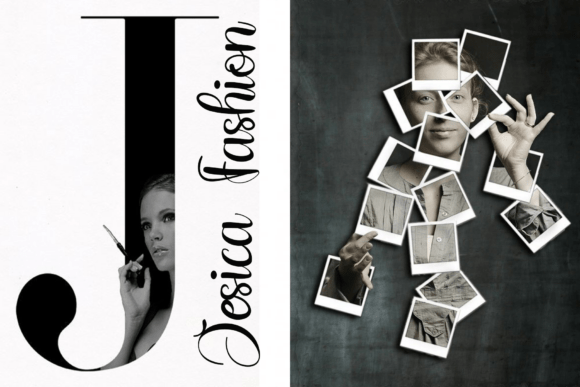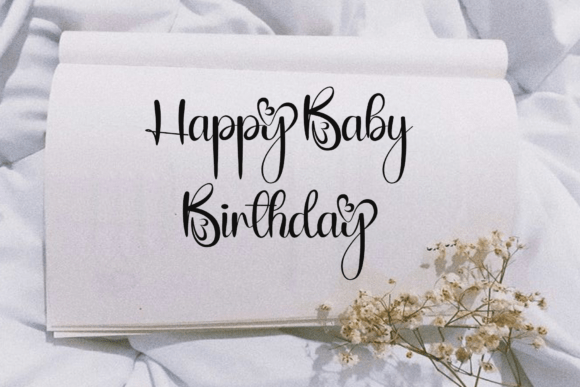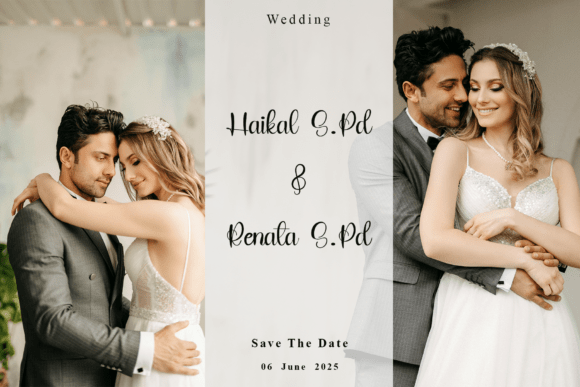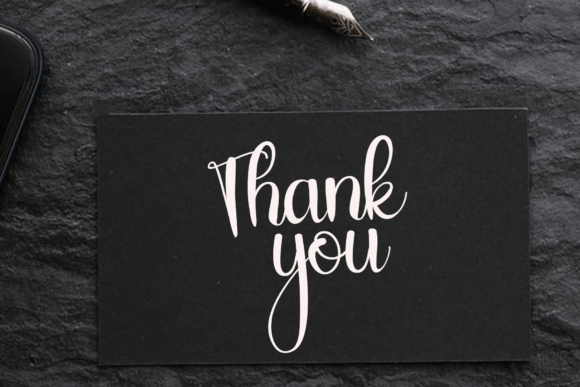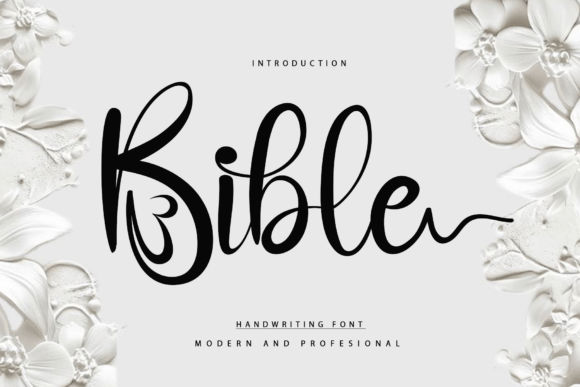
Bible Font: Elevate Your Designs with a Delicate Handwritten Style
Are you a designer or crafter looking for a unique and cool font to add a personal touch to your projects? Look no further than the Bible Font, a delicate handwritten font carefully crafted to bring a touch of elegance and sophistication to your designs. In this article, we’ll explore the features and benefits of the Bible Font, and how you can use it to take your designs to the next level.
What is Bible Font?
Bible Font is a beautiful, handwritten font that is perfect for adding a personal and unique touch to your designs. With its delicate and elegant lines, this font is ideal for creating stunning titles, invitations, letters, and more. Whether you’re a designer, crafter, or DIY enthusiast, Bible Font is a versatile and stylish choice that can be used for a wide range of projects.
Features of Bible Font
So, what makes Bible Font so special? Here are just a few of its key features:
- Delicate and elegant lines: Bible Font features beautiful, handwritten lines that are both delicate and elegant. This makes it perfect for creating sophisticated and eye-catching designs.
- Unique and cool design: With its distinctive style, Bible Font is sure to add a unique and cool touch to your designs. Whether you’re creating invitations, titles, or letters, this font is sure to make your projects stand out.
- Versatile and flexible: Bible Font is a versatile font that can be used for a wide range of projects, from food products to titles, invitations, and more.
How to Use Bible Font
So, how can you use Bible Font in your designs? Here are just a few ideas to get you started:
- Invitations and greeting cards: Add a personal touch to your invitations and greeting cards with Bible Font. This font is perfect for creating beautiful and elegant designs that are sure to impress.
- Food products and packaging: Use Bible Font to add a touch of elegance and sophistication to your food products and packaging. This font is perfect for labeling jams, honey, and other gourmet foods.
- Titles and headings: Add a unique and cool touch to your titles and headings with Bible Font. This font is perfect for creating eye-catching designs that are sure to grab attention.
- Letters and journals: Use Bible Font to add a personal touch to your letters and journals. This font is perfect for creating beautiful and elegant handwritten designs.
Benefits of Using Bible Font
So, why should you choose Bible Font for your designs? Here are just a few benefits of using this beautiful font:
- Adds a personal touch: Bible Font adds a personal and unique touch to your designs, making them stand out from the crowd.
- Elegant and sophisticated: This font is perfect for creating elegant and sophisticated designs that are sure to impress.
- Versatile and flexible: Bible Font can be used for a wide range of projects, making it a versatile and flexible choice for designers and crafters.
In conclusion, Bible Font is a beautiful and unique handwritten font that is perfect for adding a personal touch to your designs. With its delicate and elegant lines, this font is ideal for creating stunning titles, invitations, letters, and more. Whether you’re a designer, crafter, or DIY enthusiast, Bible Font is a versatile and stylish choice that can be used for a wide range of projects. So why not give it a try and see the difference it can make in your designs?
Get Creative with Bible Font
Ready to get creative with Bible Font? Here are a few tips to help you get started:
- Experiment with different colors: Try pairing Bible Font with different colors to create unique and eye-catching designs.
- Mix and match with other fonts: Don’t be afraid to mix and match Bible Font with other fonts to create interesting and dynamic designs.
- Use it for digital and print projects: Bible Font can be used for both digital and print projects, making it a versatile choice for designers and crafters.
With its unique and cool design, Bible Font is sure to elevate your designs and add a personal touch to your projects. So why wait? Give Bible Font a try today and see the difference it can make in your designs!